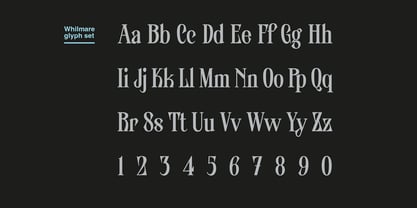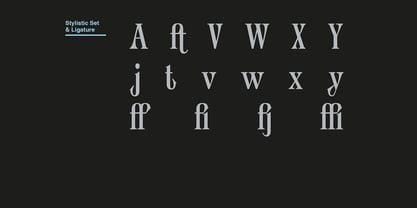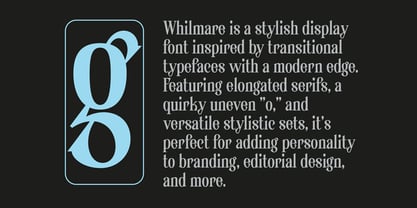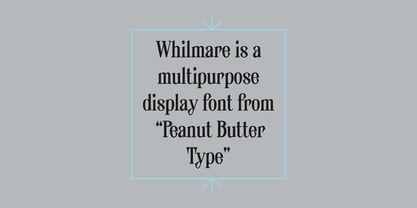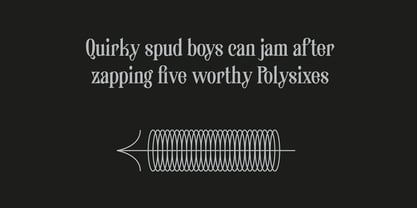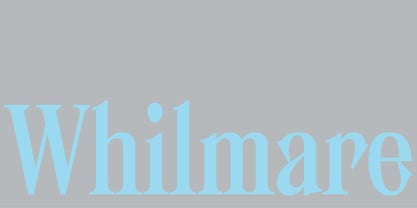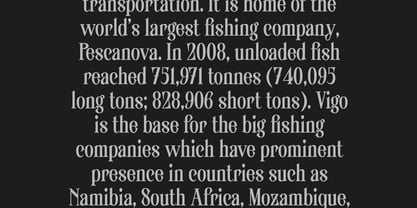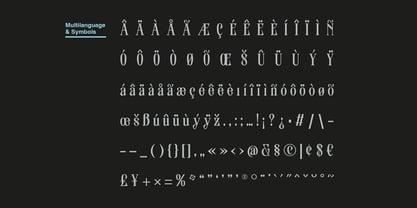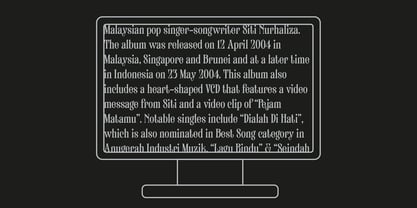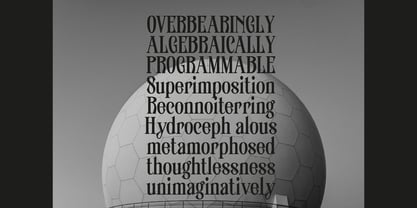
Whilmare
por PB Type
A família de fontes Whilmare foi desenhada por Ilham Prambudiharjo Raharjo e publicada pela PB Type. Whilmare contém 1 estilos. Saiba mais sobre esta família
Whilmare is a stylish display font that blends the elegance of transitional typefaces with a contemporary twist. Featuring elongated serifs, a distinctive uneven “o”, and a range of versatile stylistic alternates, Whilmare brings character and sophistication to any design. Its unique details create a refined yet playful aesthetic, making it an excellent choice for branding, editorial layouts, packaging, logos, posters, and other creative projects that demand a memorable typographic presence. Whether used for bold headlines or expressive visual identities, Whilmare adds a touch of personality and modern charm.
Designers: Ilham Prambudiharjo Raharjo
Fundição: PB Type